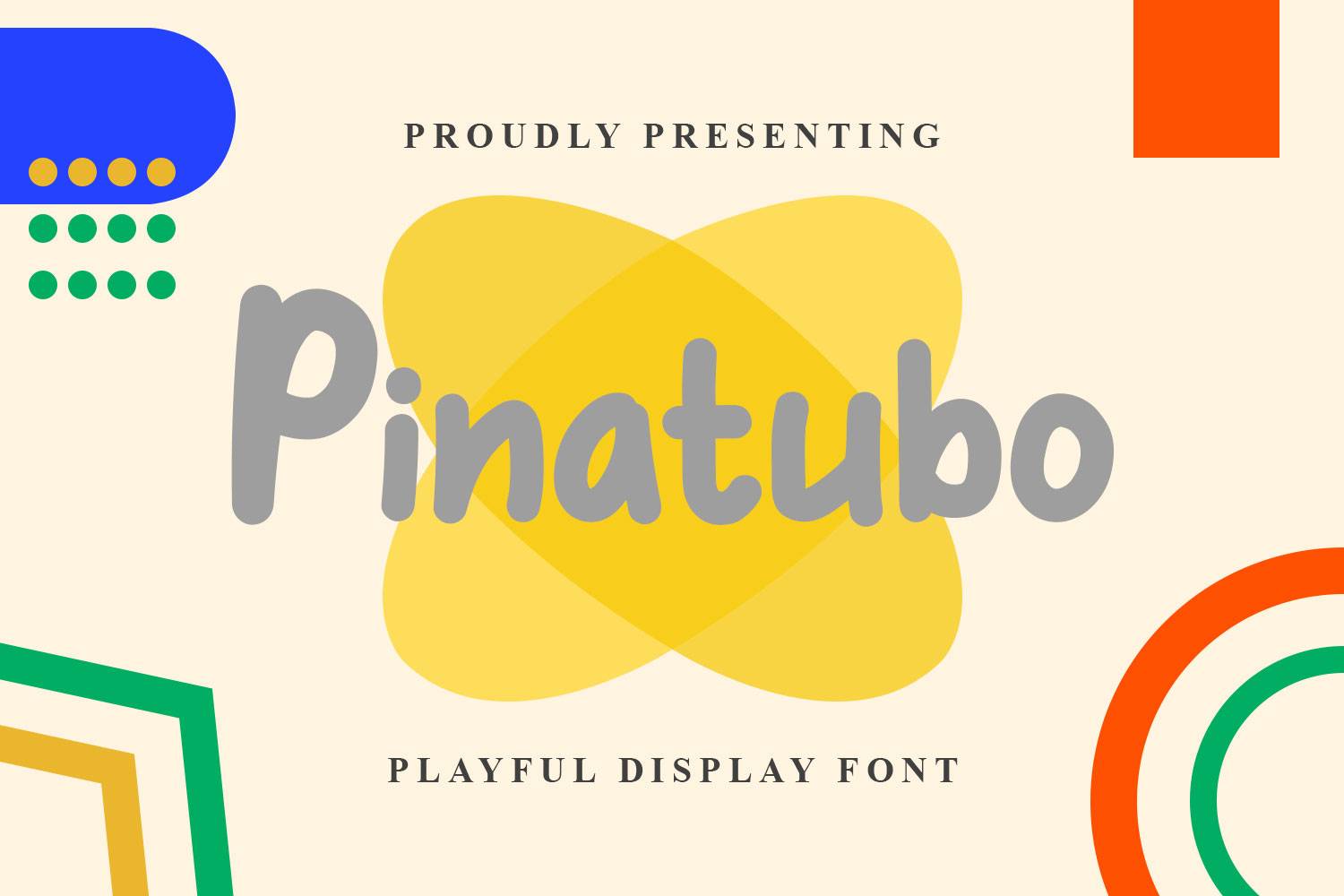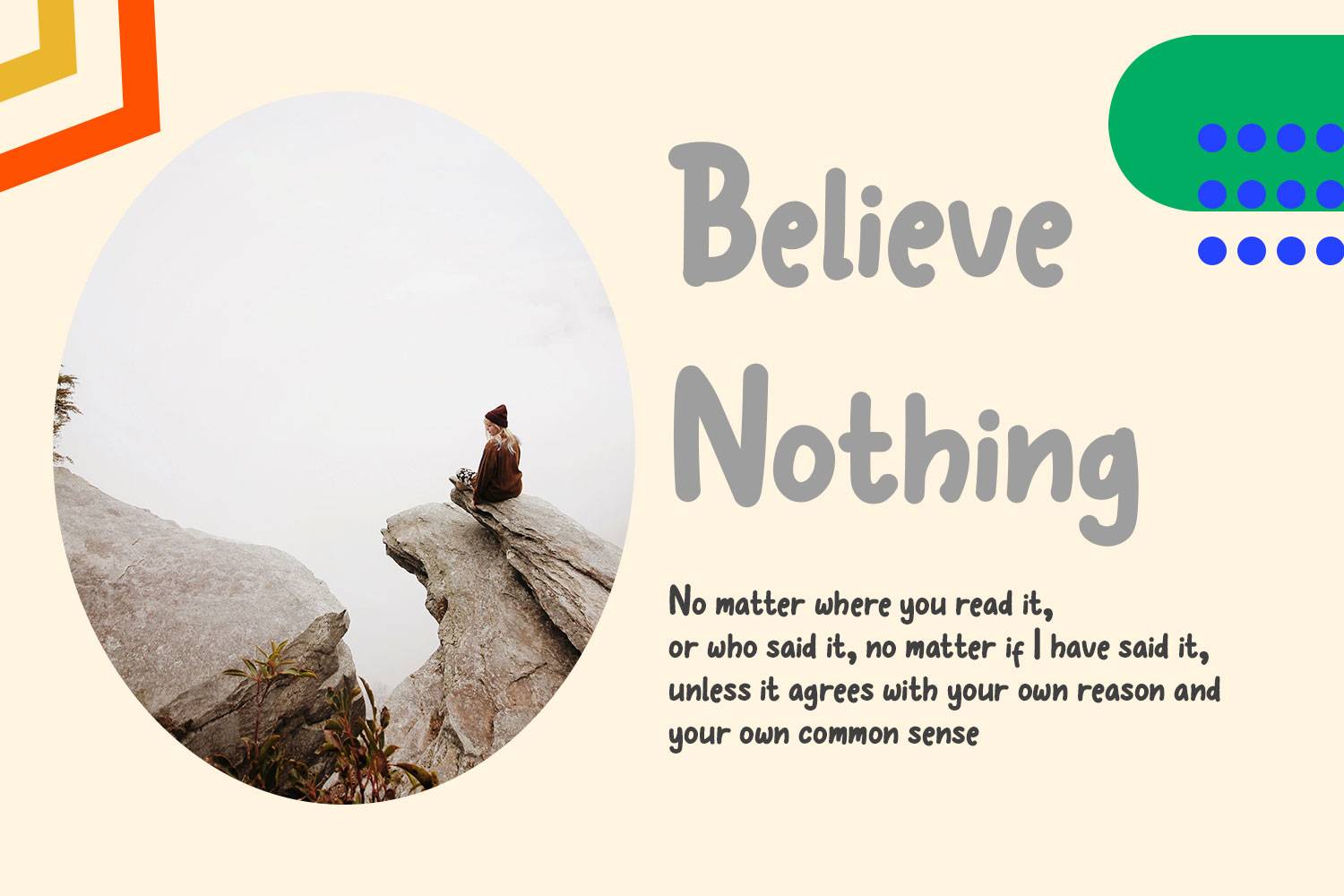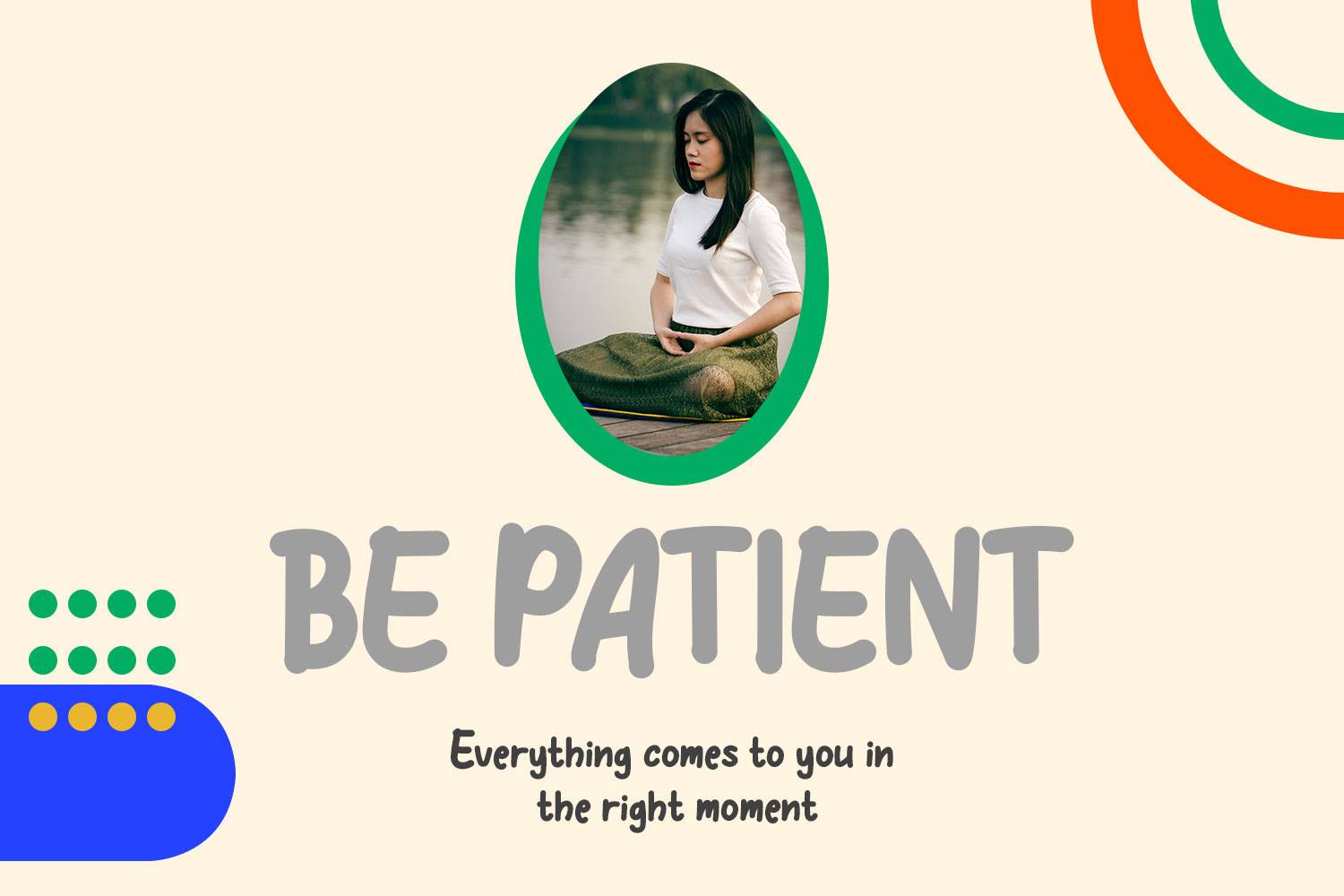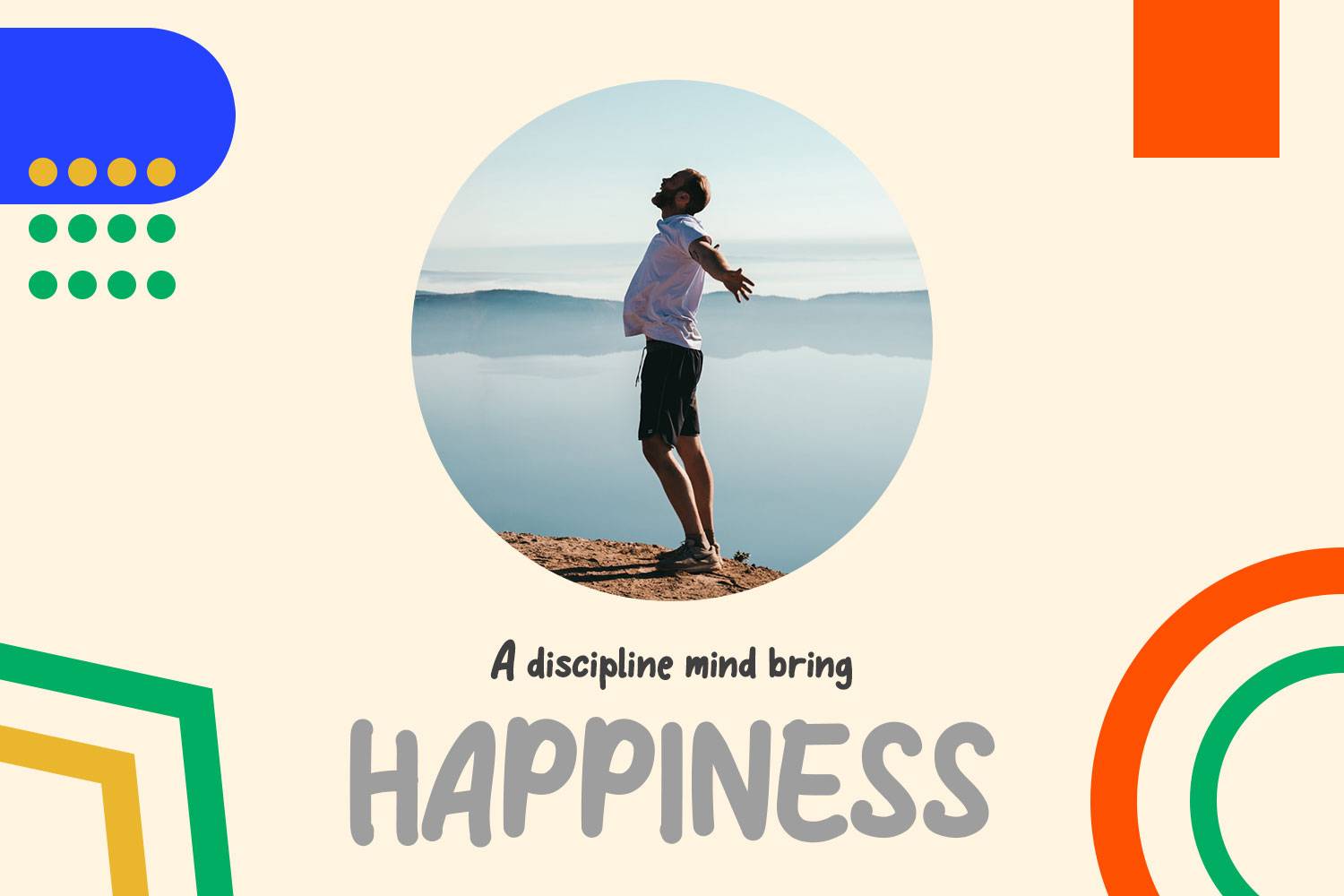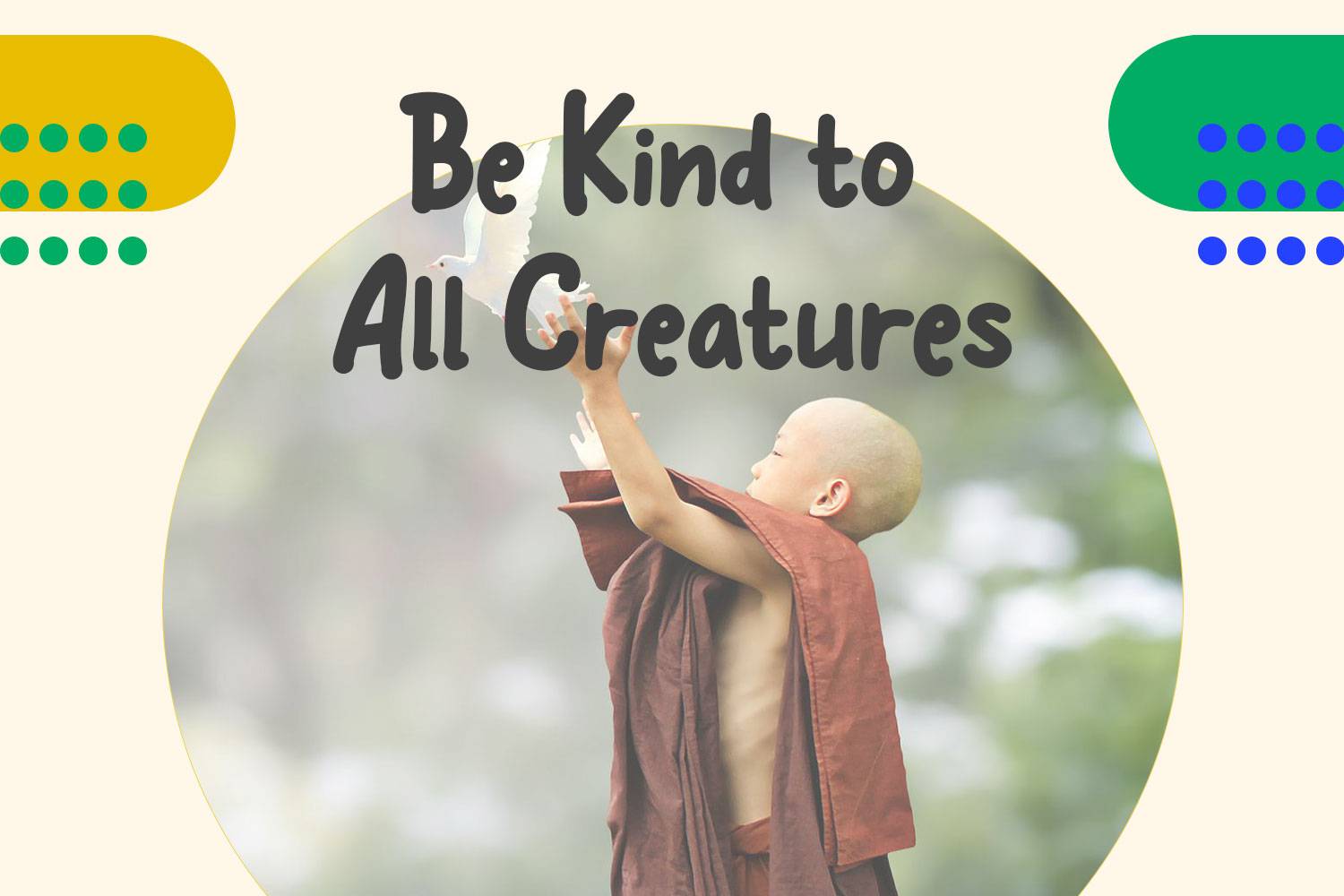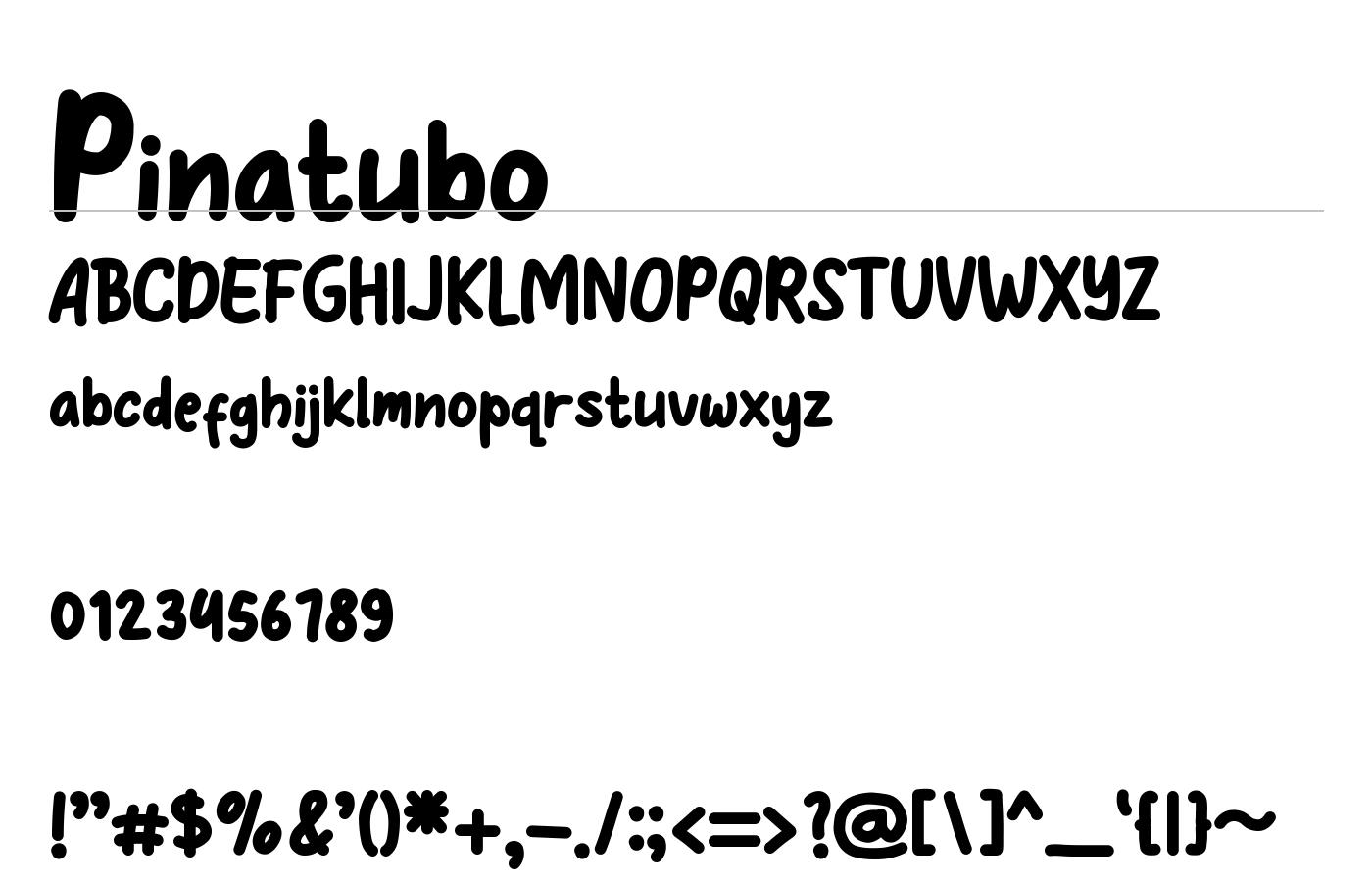
Pinatubo is a playful and friendly sans-serif font with rounded, bold strokes that give it a warm and approachable feel. Its casual handwritten style makes it perfect for creative projects, children's materials, and branding that seeks a fun and informal vibe. This font works well for headlines, logos, and packaging where a lively and engaging aesthetic is desired.
Pinatubo Font
About Pinatubo Font